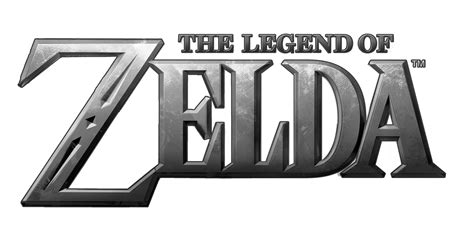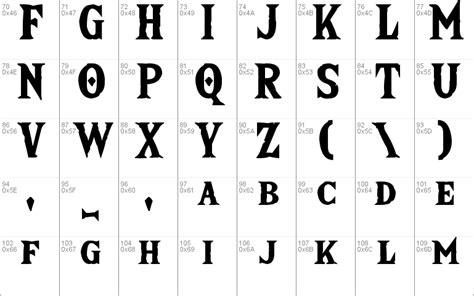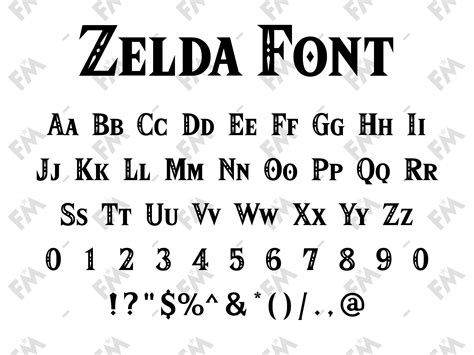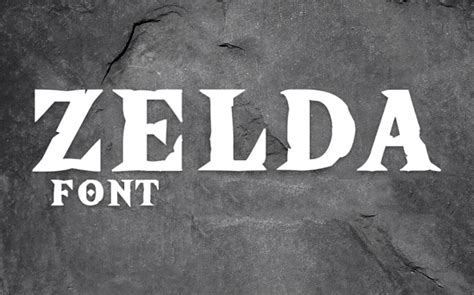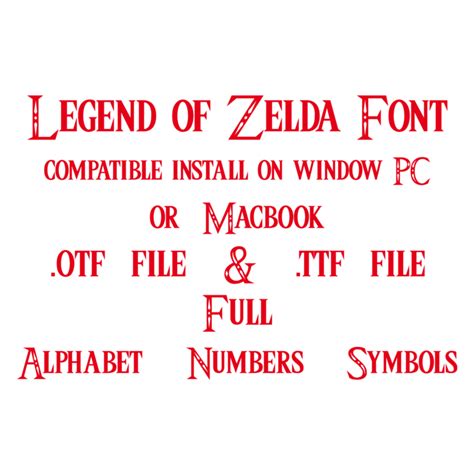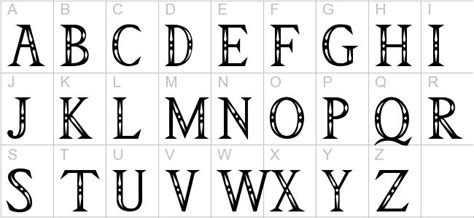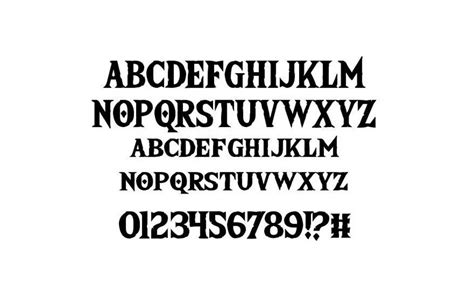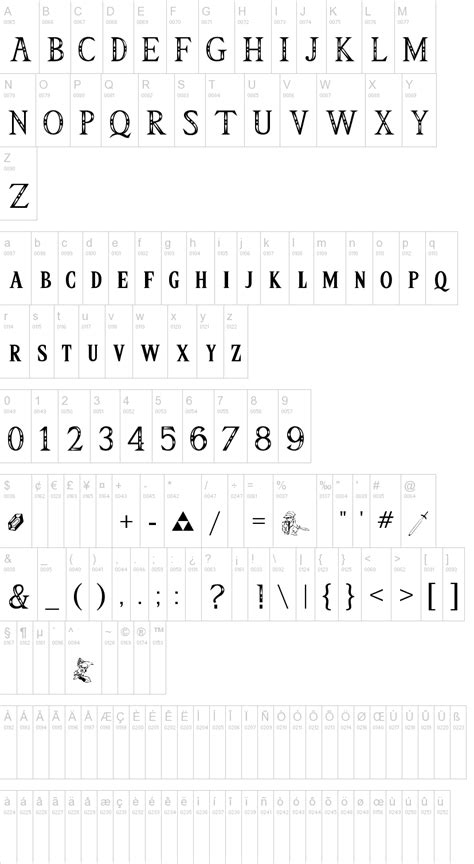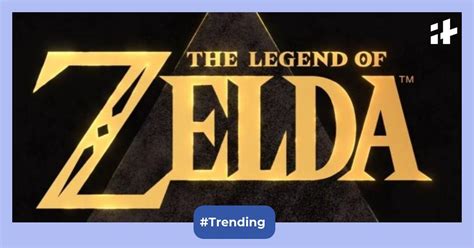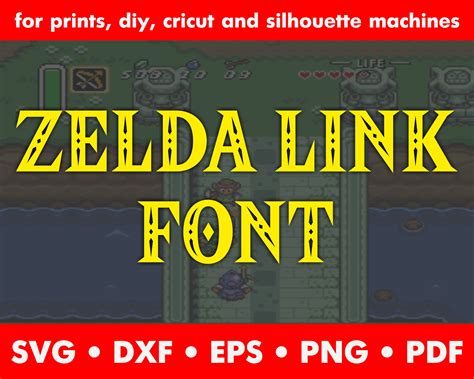
The Legend of Zelda franchise has captivated players for decades with its enchanting worlds, captivating stories, and iconic characters. One of the key elements that contribute to the series' visual appeal and immersive experience is its distinctive font. The Legend of Zelda font has become an integral part of the franchise's identity, leaving a lasting impression on fans and players alike.
This font is more than just a collection of letters and symbols; it is a carefully crafted design that embodies the spirit of the Zelda universe. With its unique style and attention to detail, it has become synonymous with the series' signature look and feel. The font's influence extends beyond the game itself, as it has been adopted and recognized by fans worldwide, becoming a cultural icon in its own right.
By the end of this introduction, readers will gain a deeper appreciation for the Legend of Zelda font and its significance in the franchise's success. They will understand how a simple font can become a powerful tool for storytelling, immersion, and fan engagement.
A playful and colorful font with a cartoonish styl...
Ocarina Time
This font has a futuristic, cyberpunk aesthetic wi...
Wind Waker
Inspired by ancient Greek or Roman calligraphy, th...
Old
A hand-painted font with a whimsical and organic s...
Alphabet
The font has a dramatic and epic feel, with tall, ...
Title
A minimalist, geometric font with a modern and cle...
deviantART
Inspired by ancient runes, this font has a mystica...
Toto
A bold and modern font with a 3D effect, giving it...
Original
The font incorporates elements of nature with flow...
HTML
A vintage-style font with a retro gaming feel, rem...
Nintendo
This font has a futuristic, neon glow, creating a ...